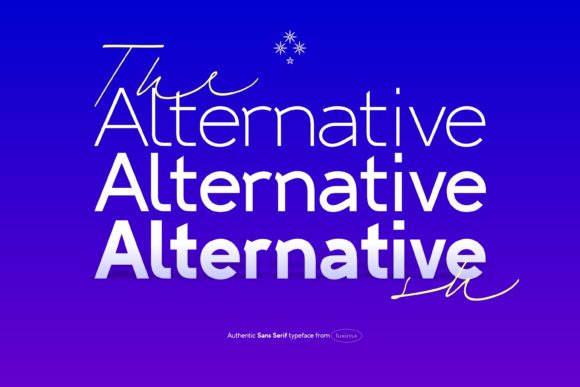
The Quest for the Perfect Font: Discovering Alternative SH
Ah, the eternal struggle of finding the perfect font for our design projects. I still remember the time I was working on a branding project for a trendy clothing line, and my client asked for a font that was “cool, modern, and casual.” I scoured the internet, tried out countless fonts, but nothing seemed to fit the bill. That was until I stumbled upon Alternative SH, a game-changing sans serif font that has since become a staple in my design toolkit.
First Impressions: A Review of Alternative SH
So, what makes Alternative SH so special? Let’s dive into the good stuff! 😊
- ✨ Cool and modern vibe: Alternative SH has a fresh, contemporary feel that’s perfect for brands looking to make a statement.
- ✅ Highly versatile: This font works beautifully for logotypes, headlines, and body text, making it a great all-around choice.
- 🌈 Great for creative projects: Whether you’re designing a poster, a comic book, or a YouTube thumbnail, Alternative SH is sure to add a pop of personality.
The Not-So-Perfect Font
While Alternative SH is an amazing font, it’s not without its quirks. Here are a few things to keep in mind:
- 🤔 Limited serif options: As a sans serif font, Alternative SH might not be the best choice for projects that require a more traditional, serif look.
- ⚠️ Some glyphs can be finicky: I’ve encountered some issues with certain glyphs not displaying correctly in certain software. But don’t worry, these issues are relatively rare and usually easy to work around.
The Story Behind Alternative SH
Ever wonder how fonts are created? While I couldn’t find any information on the exact origins of Alternative SH, I like to imagine that it was born out of a designer’s frustration with traditional fonts. Maybe they wanted to create a font that was both modern and playful, yet versatile and professional. Whatever the story, Alternative SH has certainly made a mark on the design world! 😊
| Is Alternative SH suitable for body text? | While Alternative SH is primarily designed for headlines and logotypes, it can be used for body text in certain contexts. However, keep in mind that it might not be the most readable font for long blocks of text. |